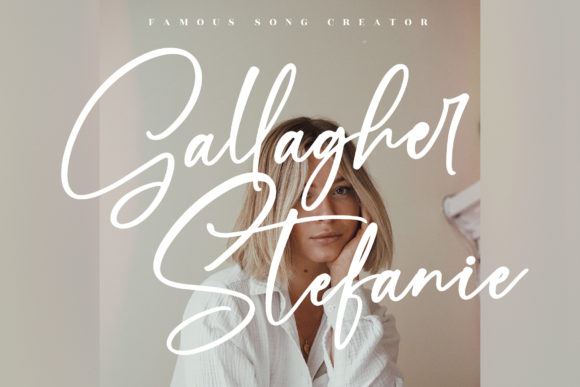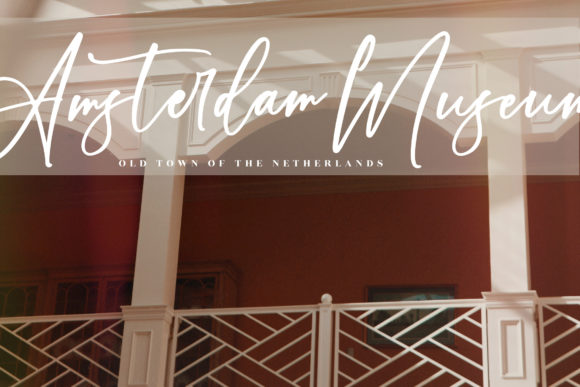
The Adams Font
db-ku.com - Script & Handwritten -- The Adams is a beautiful script font. It is suitable for any projects such as: logos, branding projects, homeware designs, product packaging, mugs, quotes, and all your other lovely projects that need a beautiful script taste. This font is PUA encoded which means you can access all of the glyphs and swashes with ease!